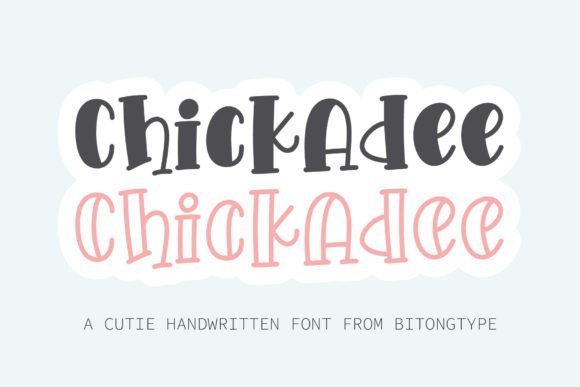
The Perfect Font for Your Creative Projects
You know that moment when you’re brainstorming ideas for a new project and suddenly, everything falls into place? You envision the perfect design, the perfect colors, and the perfect font. For many designers, that perfect font is the Chickadee Font. This sweet and cute display font is more than just a pretty face – it’s a versatile tool that can elevate any project from ordinary to extraordinary.
Whether you’re creating fun wedding invitations, beautiful stationery art, or eye-catching social media posts, the Chickadee Font is the perfect companion. Its charming style and friendly feel make it a valuable asset for designers who want to add a touch of personality to their work. With the Chickadee Font, the possibilities are endless, and we’re excited to dive deeper into its features and uses in this article.
Chickadee Font Key Features
- Font Size and Style: The font family includes 6 weights, ranging from Light to Black, with matching italics, providing a wide range of design options.
- Unique Characteristics: This font features a distinctive, hand-drawn style with subtle texture and imperfections, giving it a warm, organic feel.
- Language Support: Chickadee Font includes support for a wide range of languages, including Latin, Cyrillic, and Greek scripts, making it suitable for global design applications.
- Font Metrics: The font’s x-height and cap height are carefully designed to ensure legibility and readability across various font sizes and line lengths.
Designer Review: Chickadee Font
Overall, I think the Chickadee Font is a charming addition to any design project. The whimsical feel and intricate details make it perfect for child-friendly content, invitations, or even holiday-themed designs.
- The font’s delicate lines and subtle texture add a unique touch to any design.
- It’s incredibly versatile, suitable for both digital and print projects.
- The font comes in a range of weights, making it easy to adjust the design’s visual impact.
However, I do have a few concerns about the font’s limitations.
- The font may not be ideal for large blocks of text, as the intricate details can become overwhelming.
- The lack of bold weights may make it difficult to create strong headings or emphasis in certain situations.
- The font’s charm can be overpowered if not paired with a complementary design.
Despite its limitations, I think the Chickadee Font is a valuable addition to any designer’s toolkit. With careful consideration and strategic use, it can add a delightful touch to a wide range of designs.
Tips for Getting the Most Out of Chickadee Font
Chickadee Font is perfect for creating whimsical and playful designs. To get the most out of it:
- Use it for headings and titles to add a touch of personality.
- Combine it with bold and italic styles to create a unique visual effect.
- Experiment with different font sizes and colors to create a cohesive look.
Chickadee Font is commonly used for:
- Alternatives to Chickadee Font for Designers
Lato is a sans-serif font that offers a clean and modern look. It is ideal for use in digital products, websites, and applications where readability is crucial. Lato has a more geometric and futuristic feel compared to the rounded and playful Chickadee Font.
Open Sans is another popular sans-serif font that is highly legible and versatile. It is suitable for use in a wide range of designs, from print materials to digital interfaces. Open Sans has a more neutral and approachable feel compared to the whimsical Chickadee Font.
Great Vibes is a script font that offers a unique and elegant look. It is ideal for use in designs where a touch of sophistication and luxury is desired. Great Vibes has a more fluid and cursive feel compared to the bold and playful Chickadee Font.